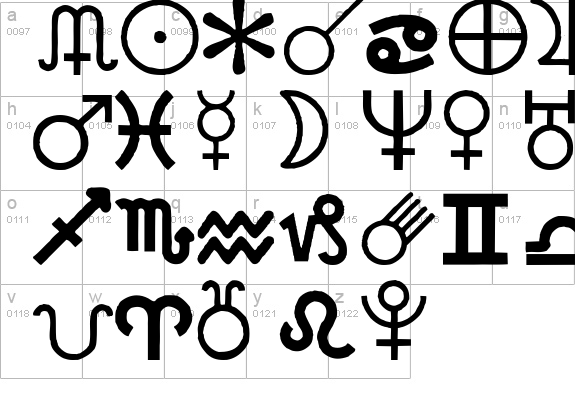
Carr AstroDings Font Details
Carr AstroDings font is a whimsical and playful typeface that is perfect for adding a touch of fun to your designs. With its unique astrological symbols and quirky characters, this font is sure to stand out and catch the eye of your audience. Whether you're creating posters, invitations, or social media graphics, Carr AstroDings will add a creative flair to your projects. The best part? Carr AstroDings font is completely free to download at FontsMarket.com, making it accessible to everyone looking to add a bit of personality to their designs. So why wait? Download Carr AstroDings today and let your creativity shine!